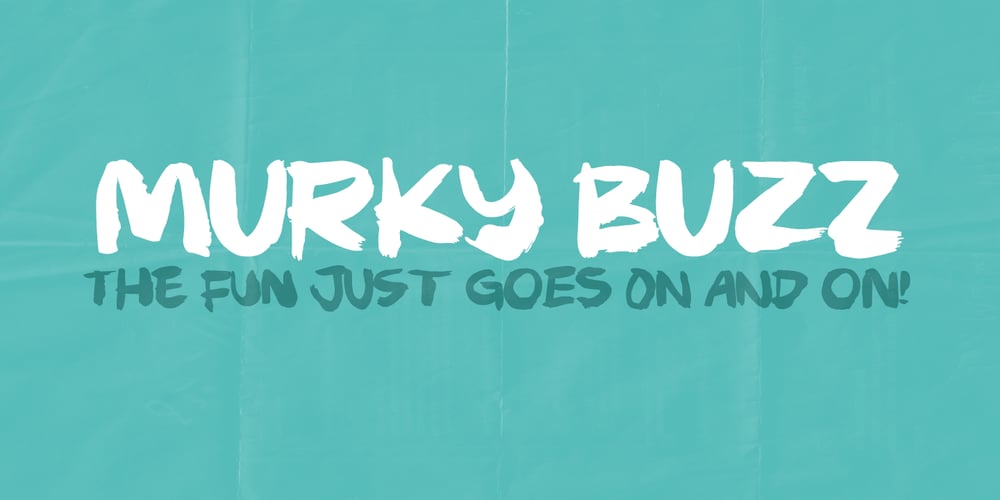
Murky Buzz Font Family was designed by Jakob Fischer and published by PizzaDude.dk. Murky Buzz contains 2 styles and family package options. Murky Buzz is wild and unpredictable! Actually it is so wild that it has got 6 different versions of each letter – enough difference to make that café sign or headline look authentic! The OpenType contextual alternates cycles while you type! It is AWESOME stuff! Speaking about stuff – Murky Buzz comes along with a good handful of ornaments to compliment the rugged brush look of the letters!